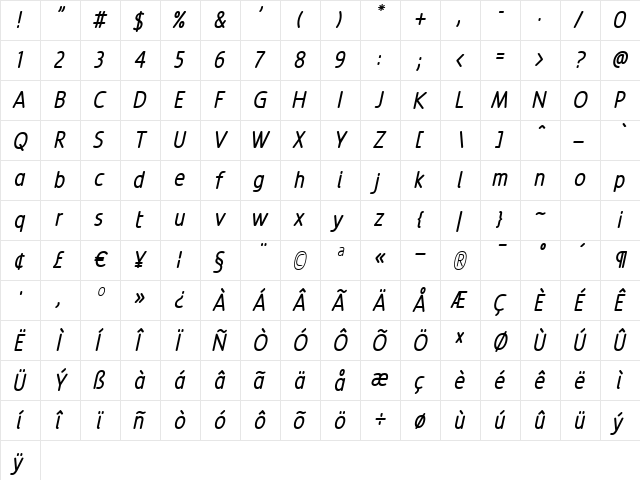
Revalo ModernRegular Italic Regular
Design Context for Revalo ModernRegular Italic Typeface
Revalo ModernRegular Italic offers clean, dependable letterforms without strong stylistic allegiance, making it a practical choice for designers who need flexibility. Its italic angle brings a sense of urgency and motion to the letterforms.
Pro Tip: Try Revalo ModernRegular Italic for annotation and caption copy alongside an upright companion — the contrast in angle creates a dynamic but ordered typographic system.